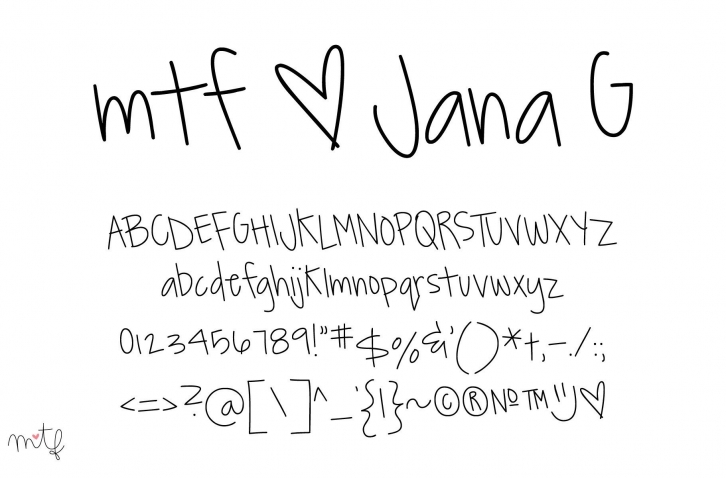
Jana G is a thin and dainty handwritten font. Natural and uncomplicated, this typeface is perfect for a digital journal, notebook, informal projects, children-related designs, or anything laid-back and unpretentious.